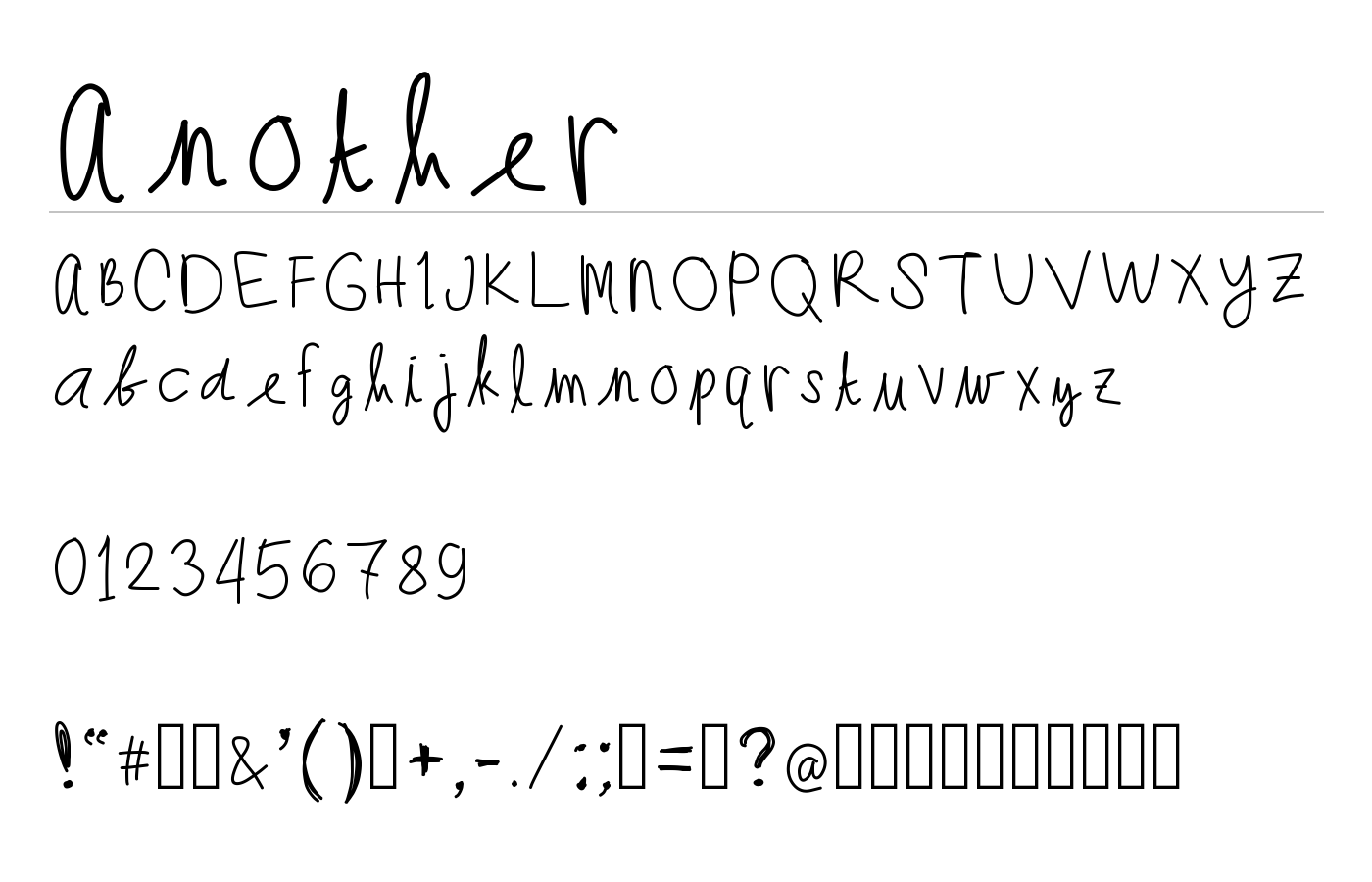
Another Font is a playful, hand-drawn script with a casual and friendly personality. Its thin, uneven strokes and narrow letterforms give it a whimsical, personal feel that works well for informal designs, creative projects, and branding that aims to convey warmth and approachability. This font is ideal for invitations, greeting cards, social media graphics, and any context where a handwritten touch adds charm and authenticity.
Another Font